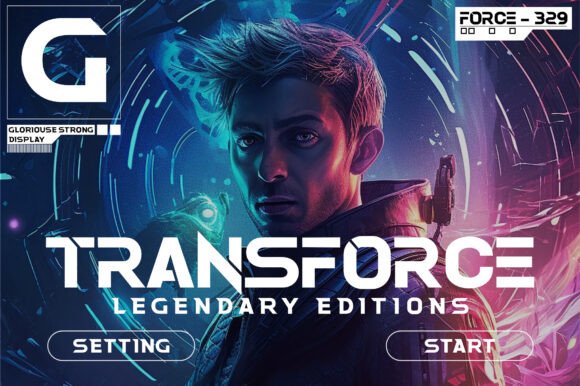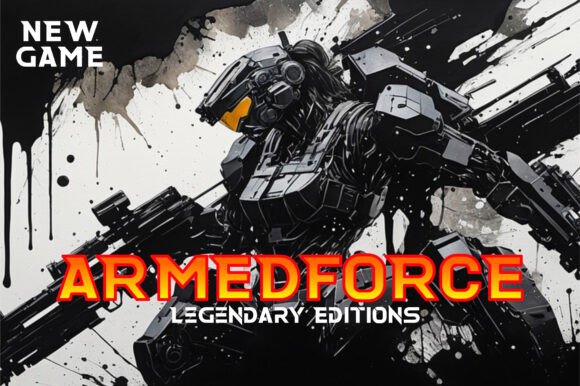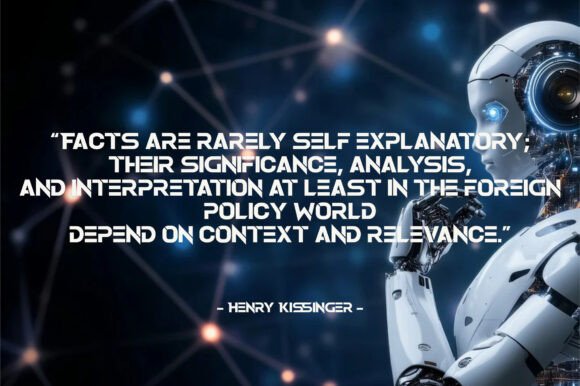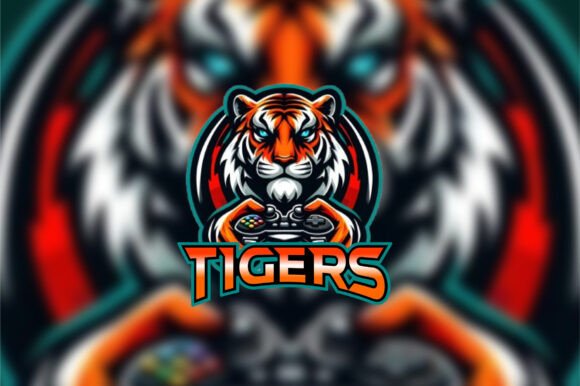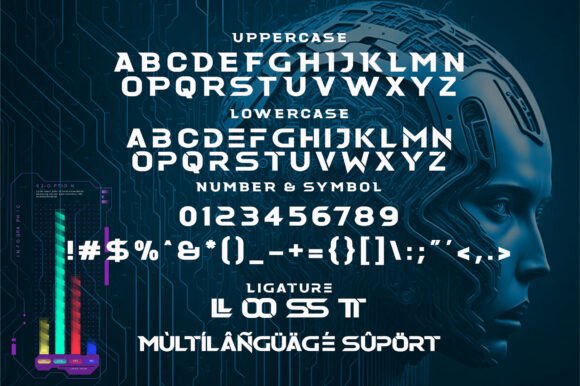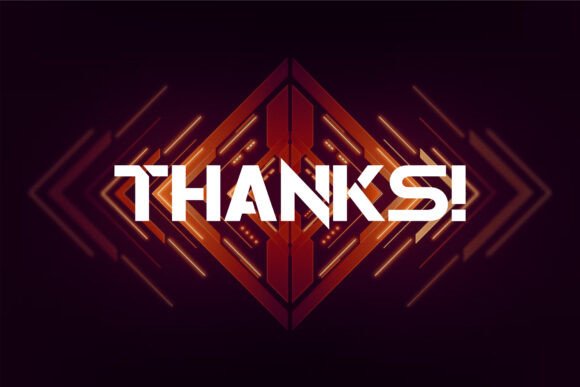
Introduction to Gloriouse Font
Gloriouse is a powerful and dynamic display font designed to make a bold statement.
Its sleek and modern design, with sharp edges and futuristic elements, makes it perfect for sci-fi themed projects, logo design, gaming, websites, and more This versatile typeface delivers a strong visual impact, capturing attention with its unique character shapes and geometric precision.
Key Features of Gloriouse Font